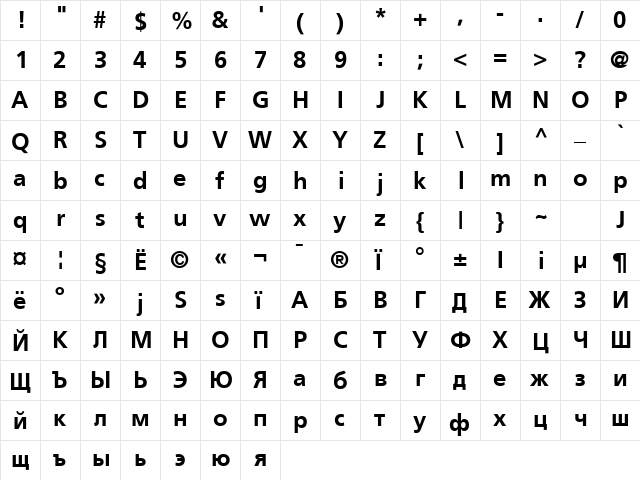
ft44 Bold
Design Context for ft44 Typeface
ft44 takes a measured approach to typography — its balanced proportions and neutral character make it a reliable workhorse for both digital and print work. The heavy weight commands attention and anchors typographic hierarchies.